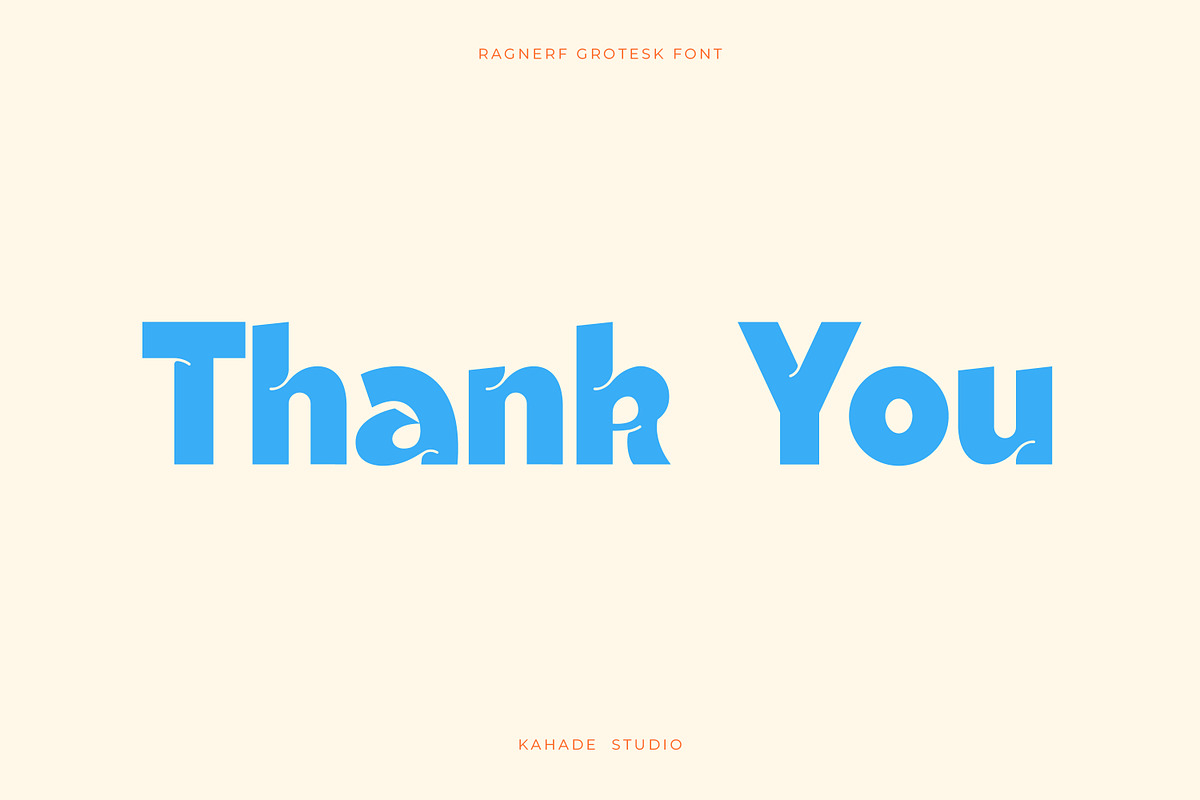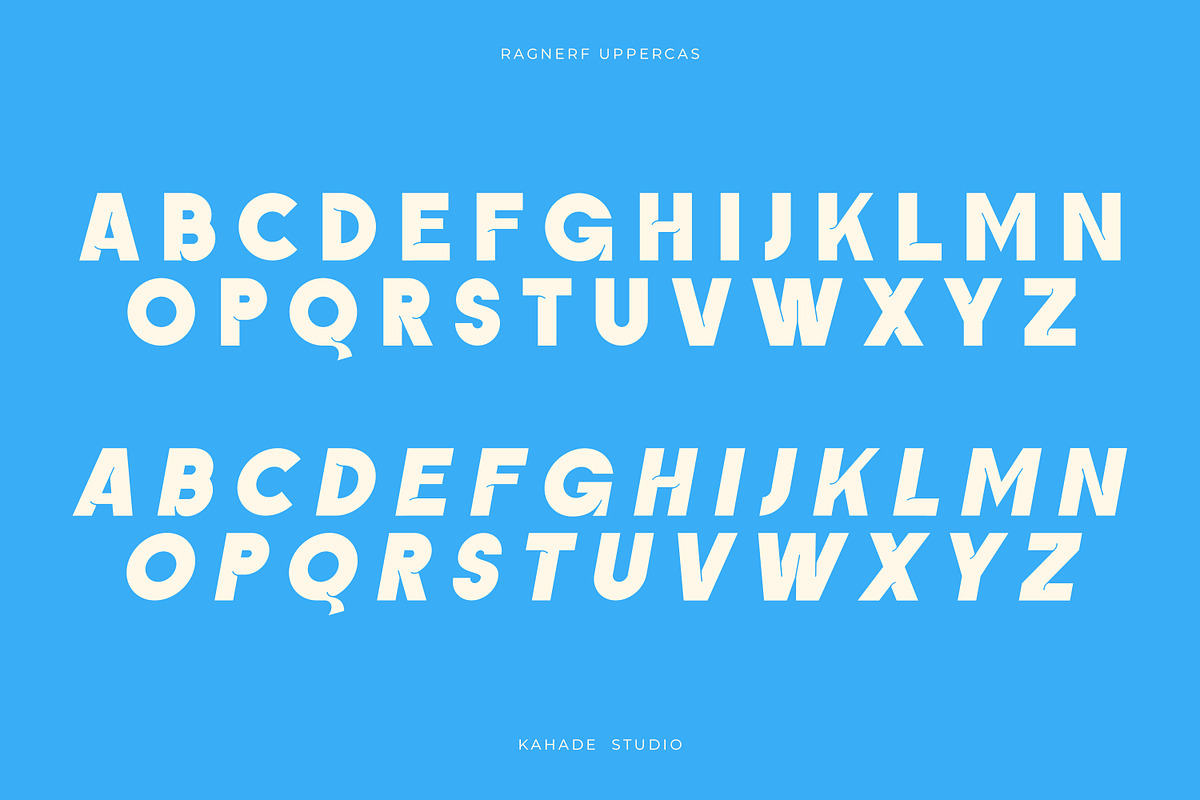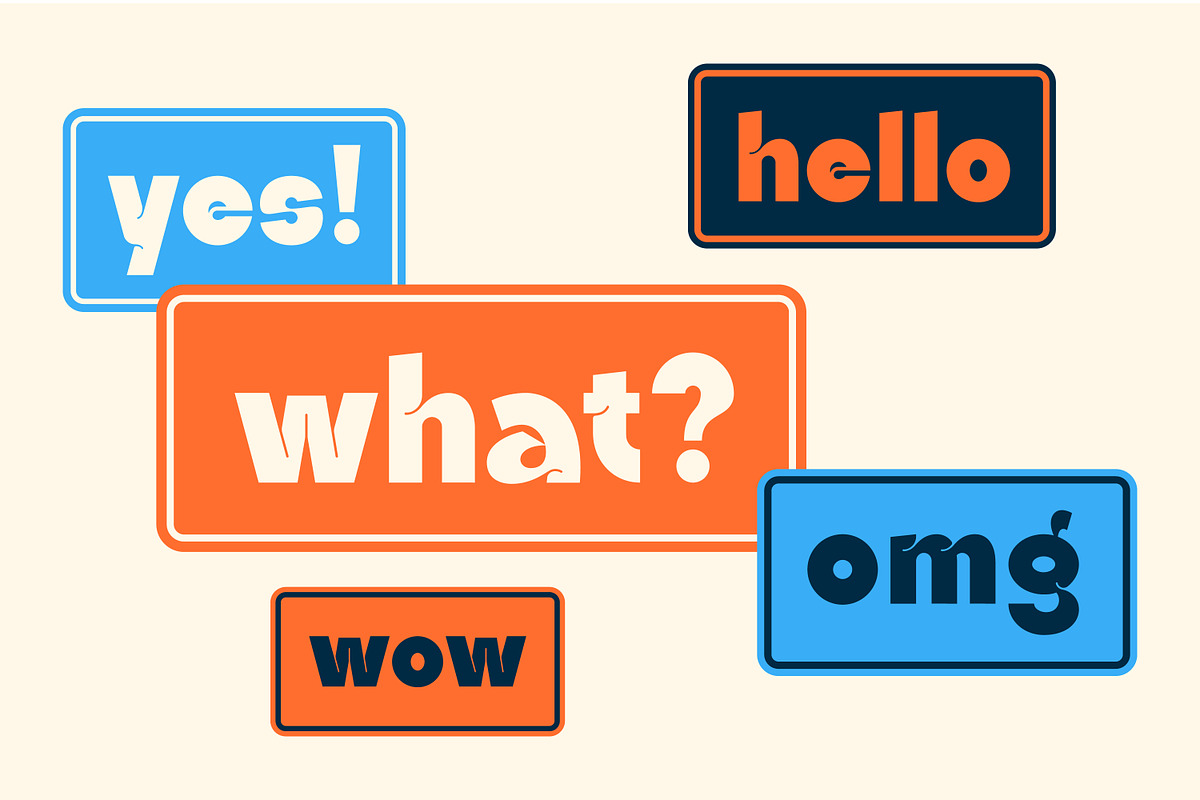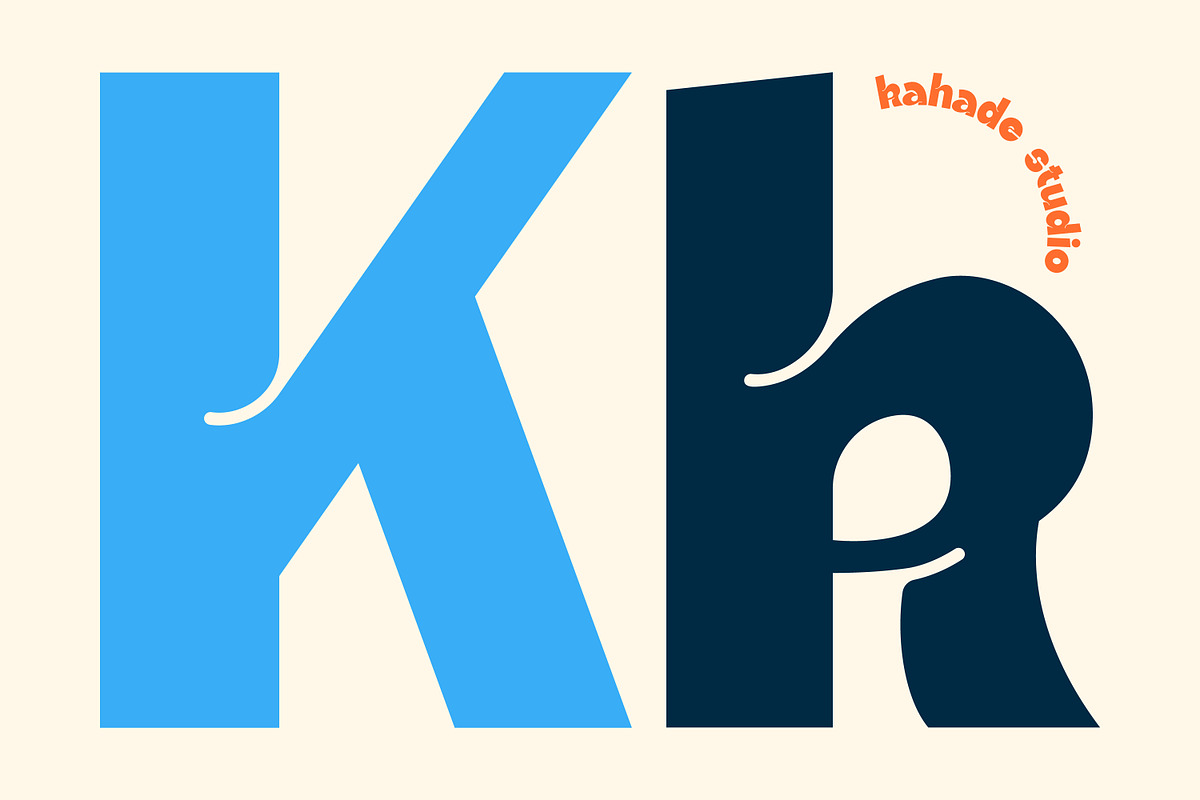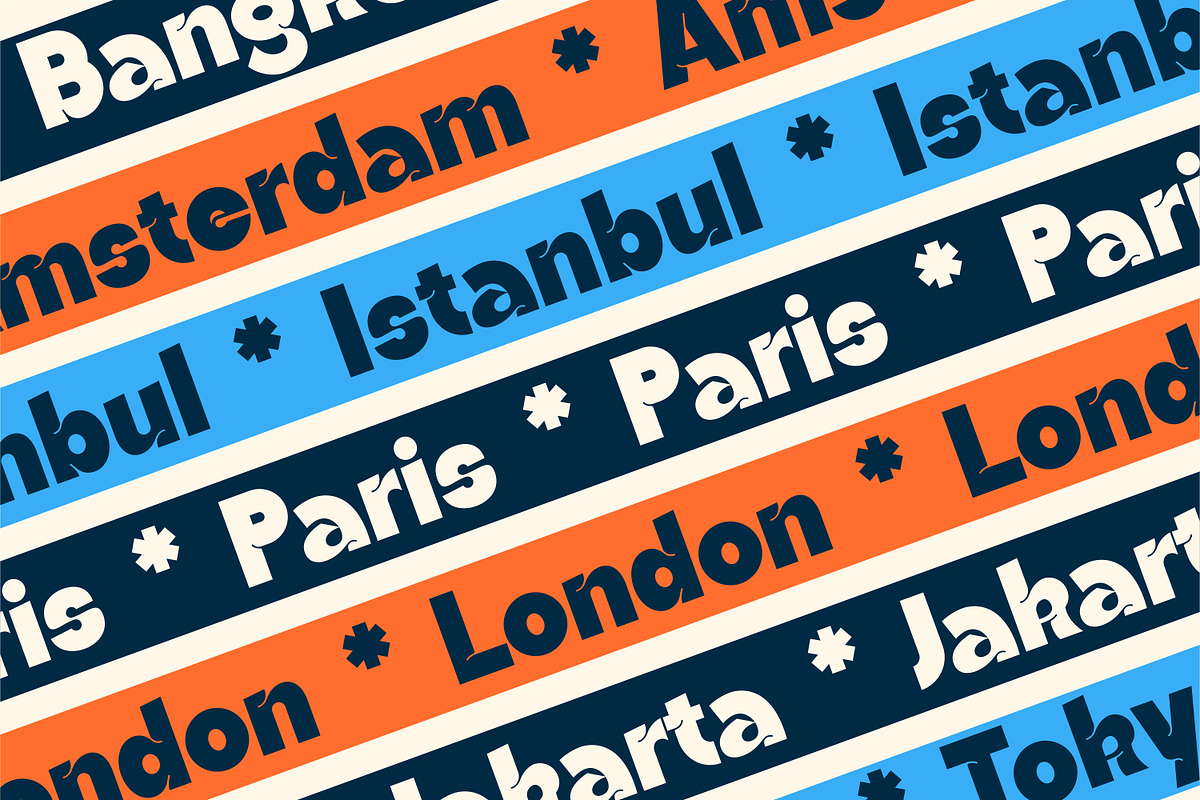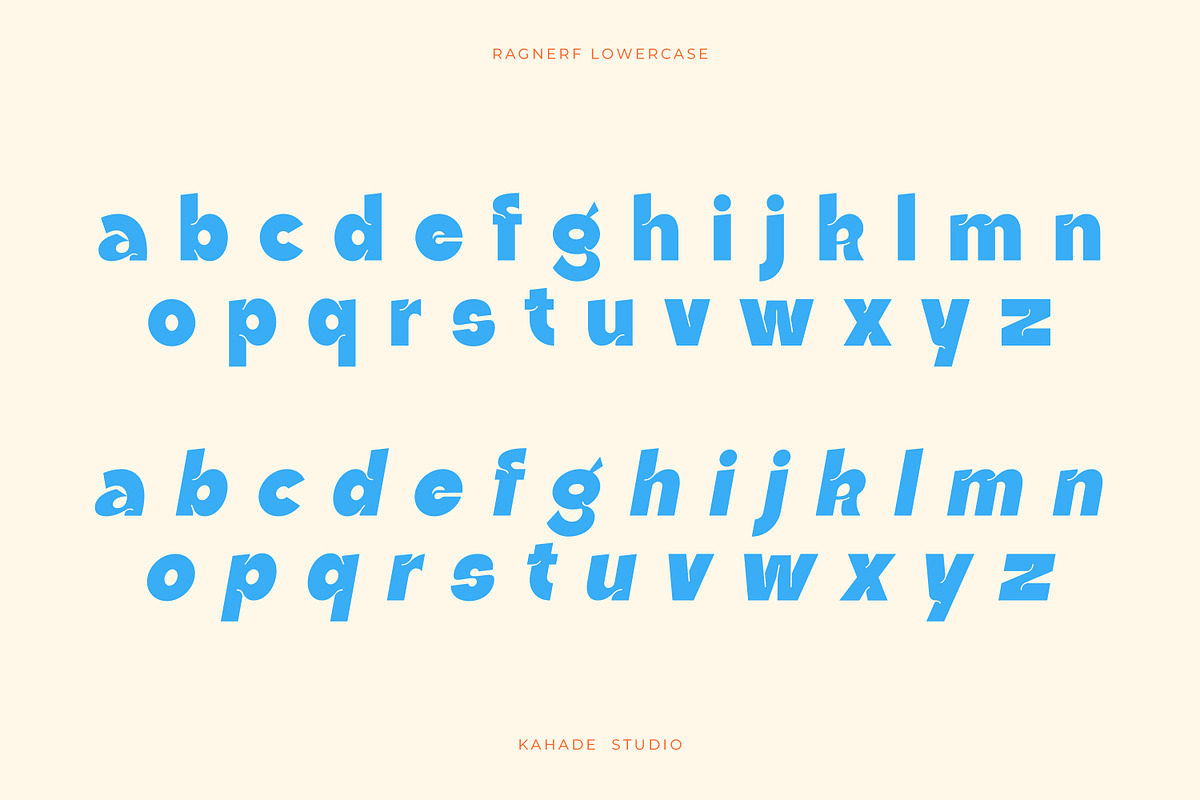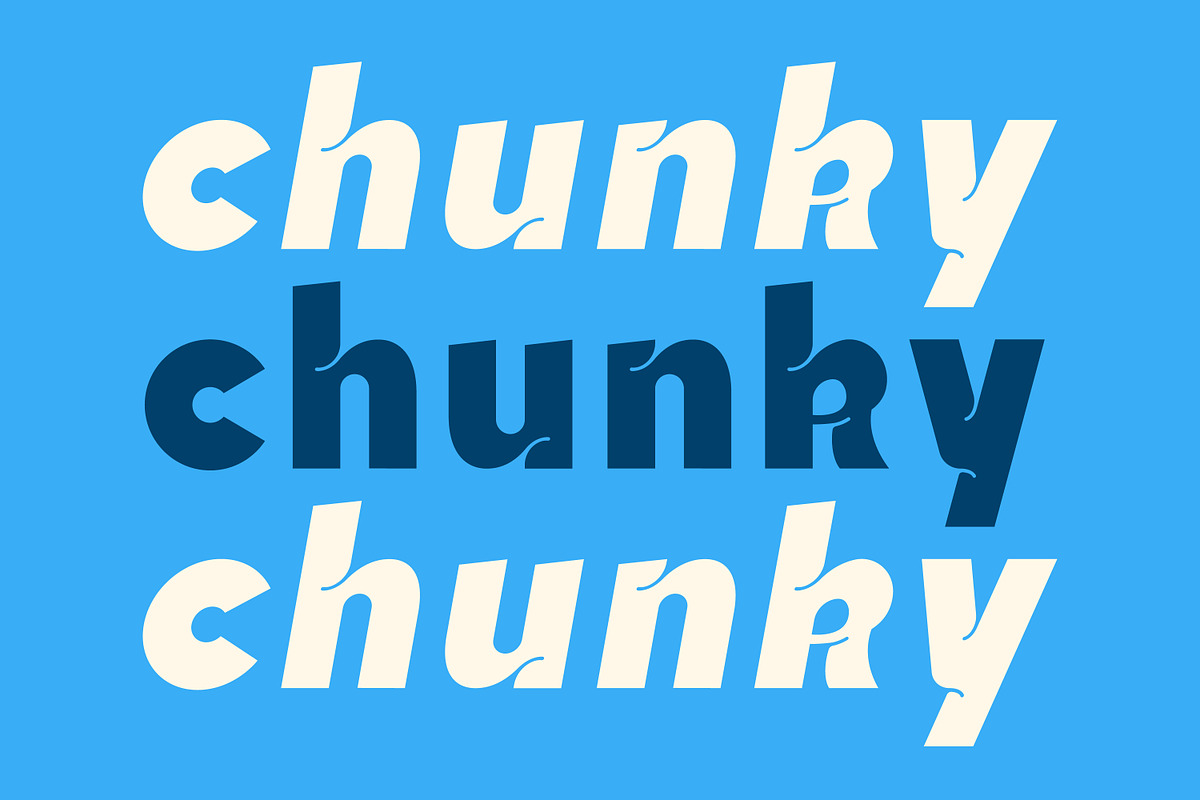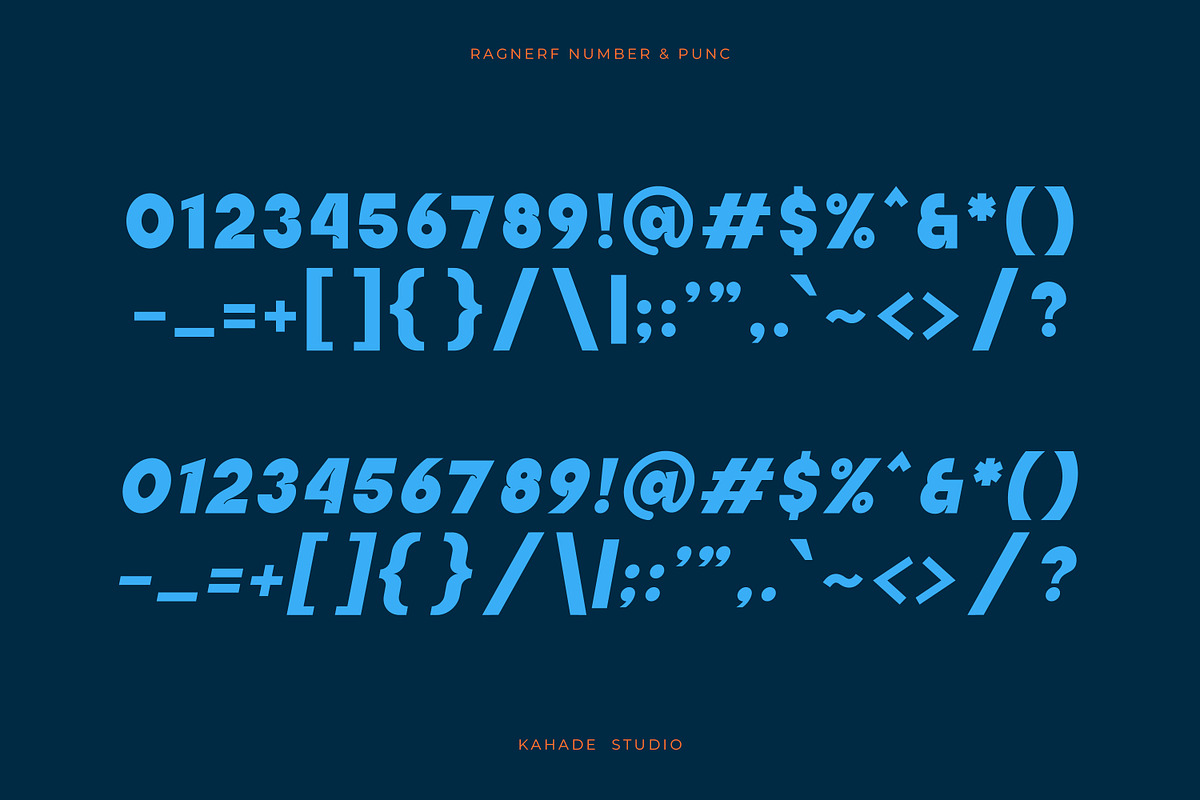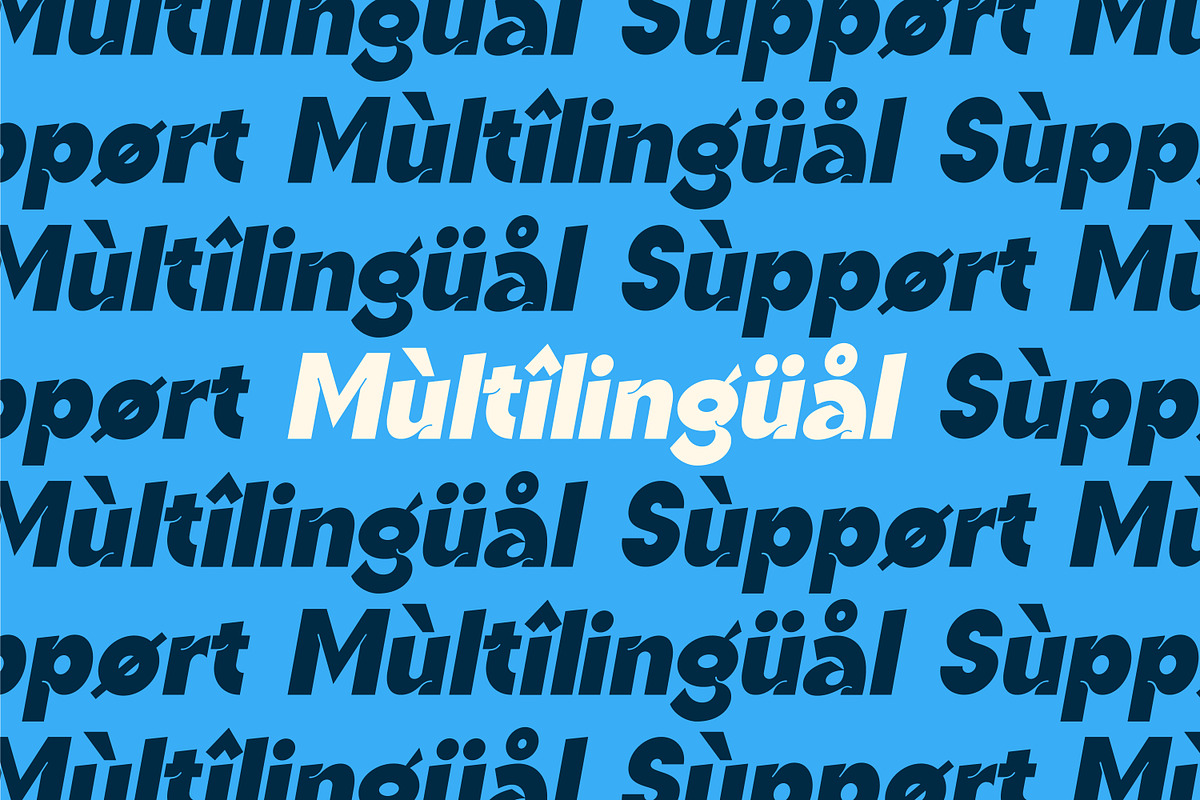
Ragnerf - Grotesk Bold Display Font
Ragnerf – Grotesk Bold Display Font. This font has a chunky character. Suitable for your various special project needs.
- Uppercase and Lowercase Character
- Regular and Italic Style
- Number & Punctuation